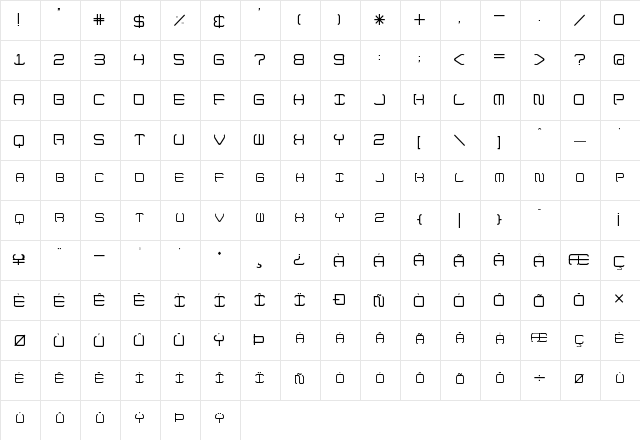
up in flames 2 Regular
Design Context for up in flames 2 Typeface
up in flames 2 is a composed and adaptable typeface that performs quietly and consistently across a wide range of design contexts.
Pro Tip: Pair up in flames 2 with a font of contrasting weight or personality to build a more expressive typographic hierarchy.